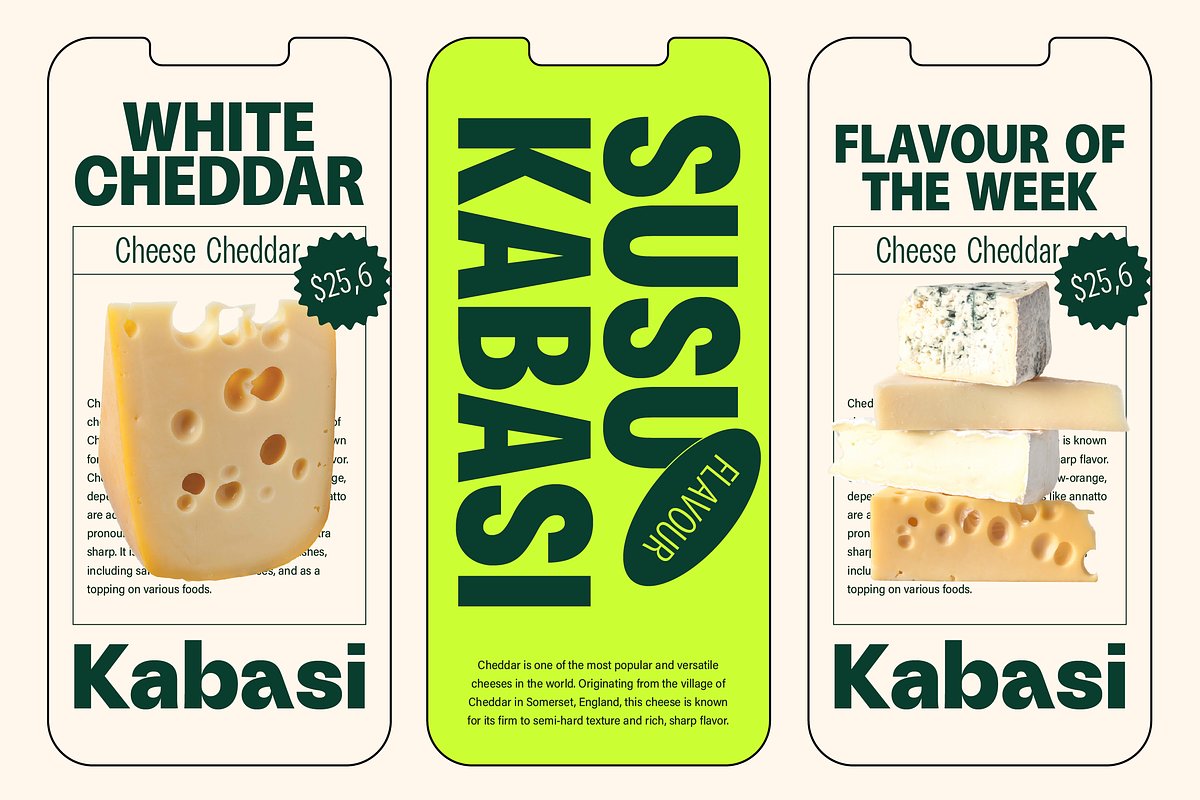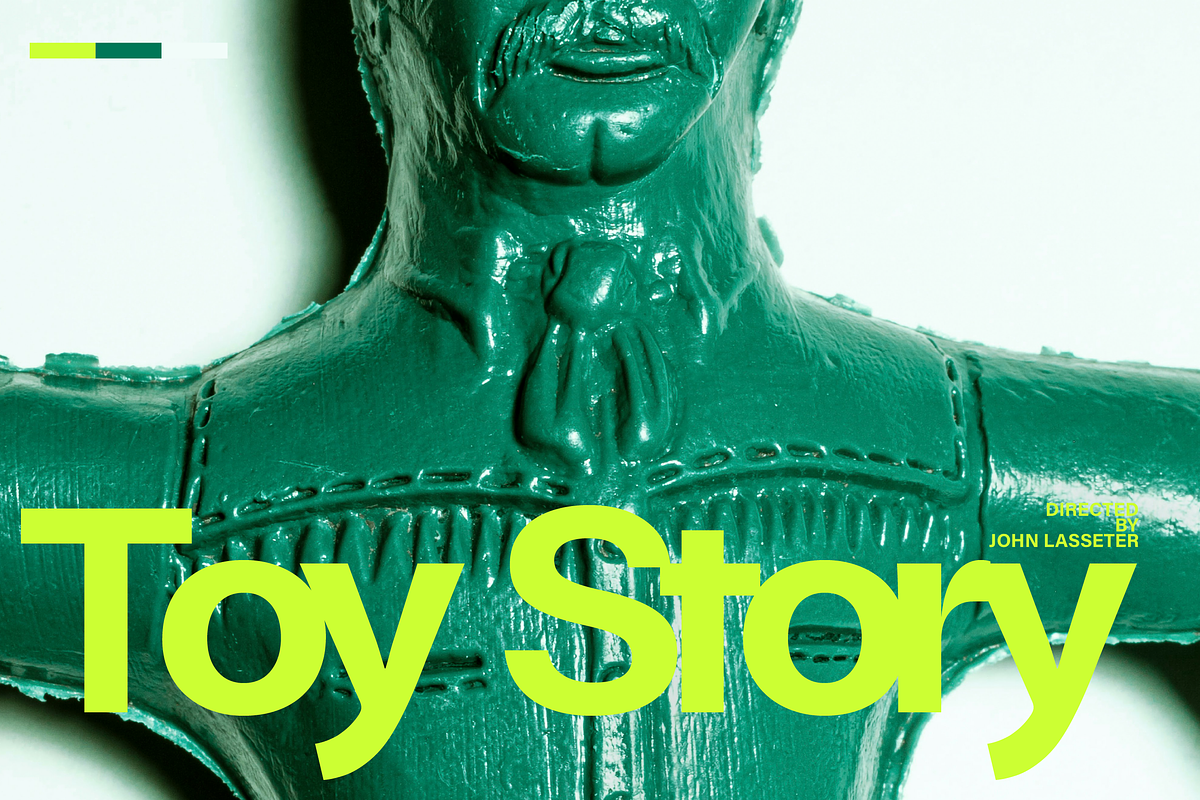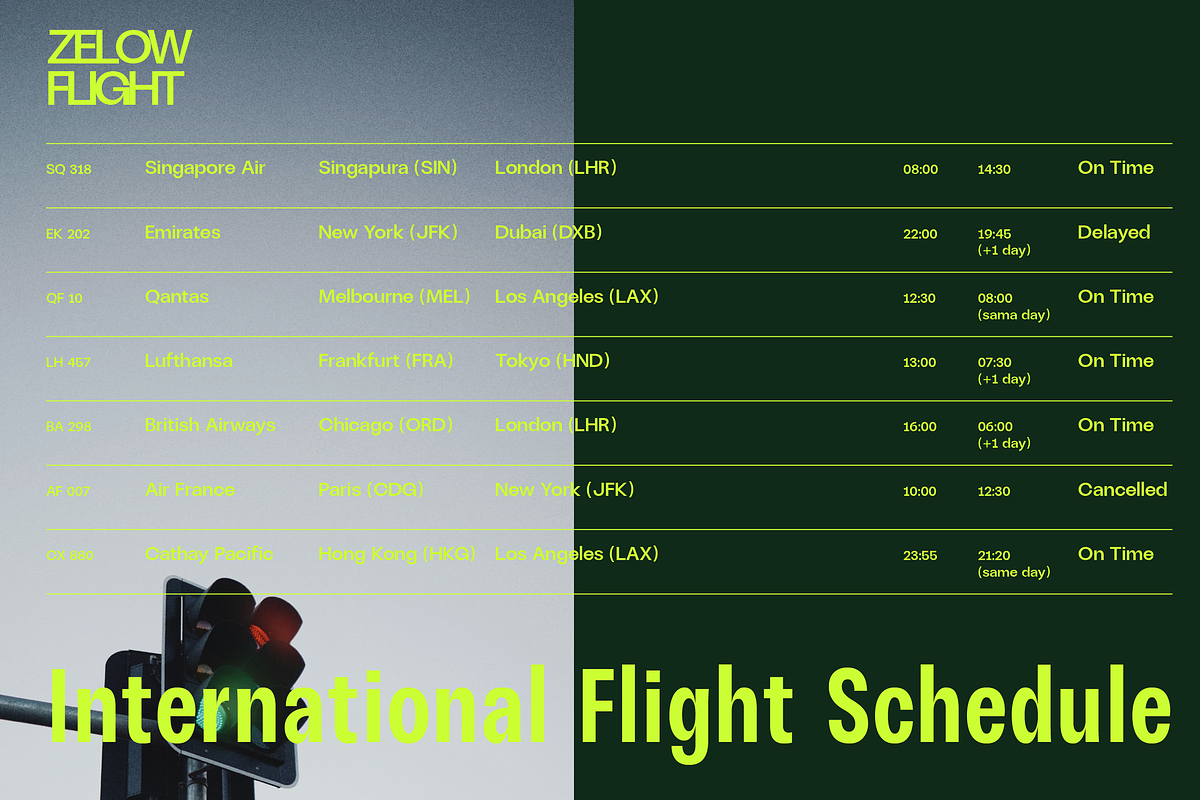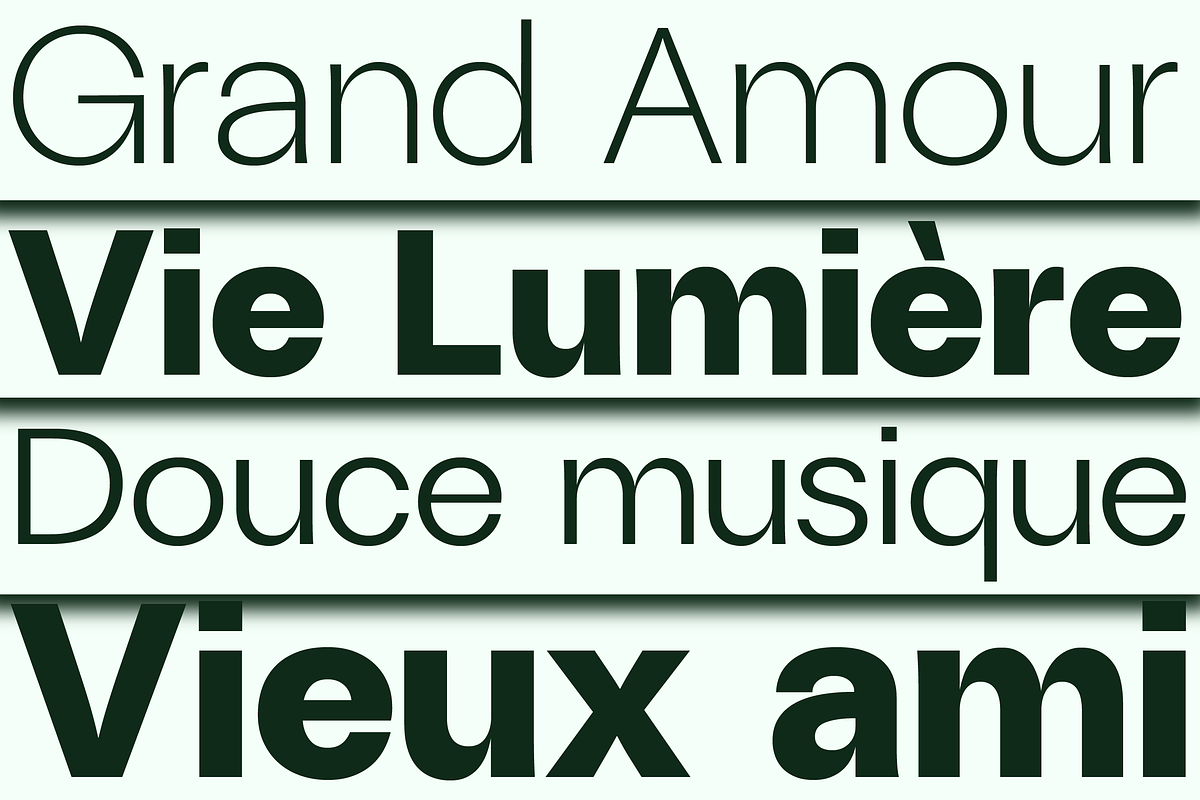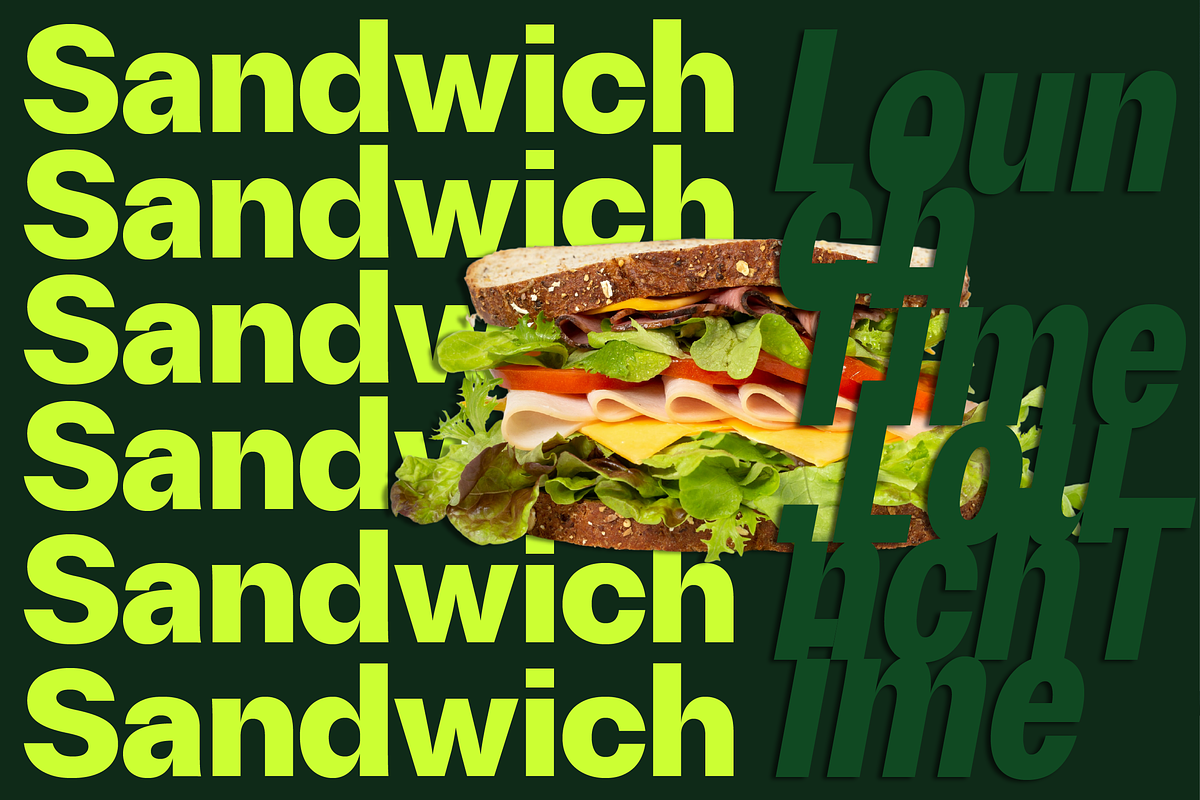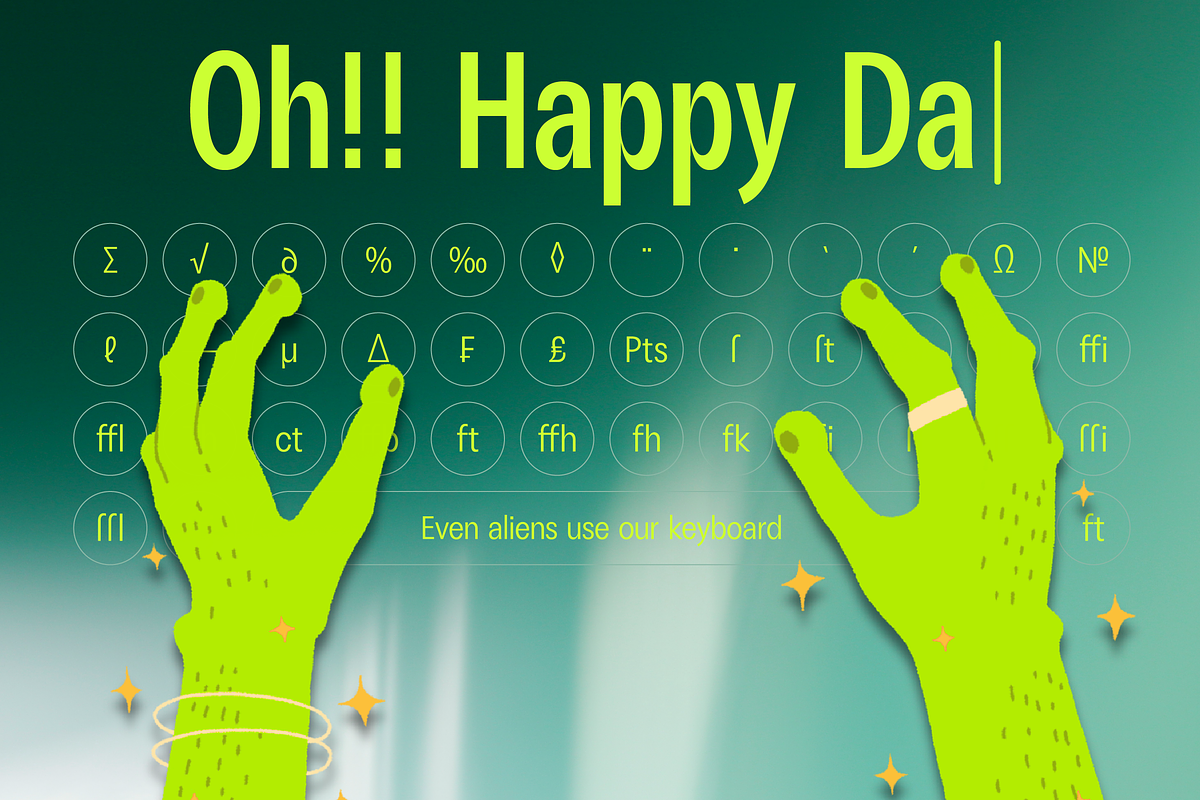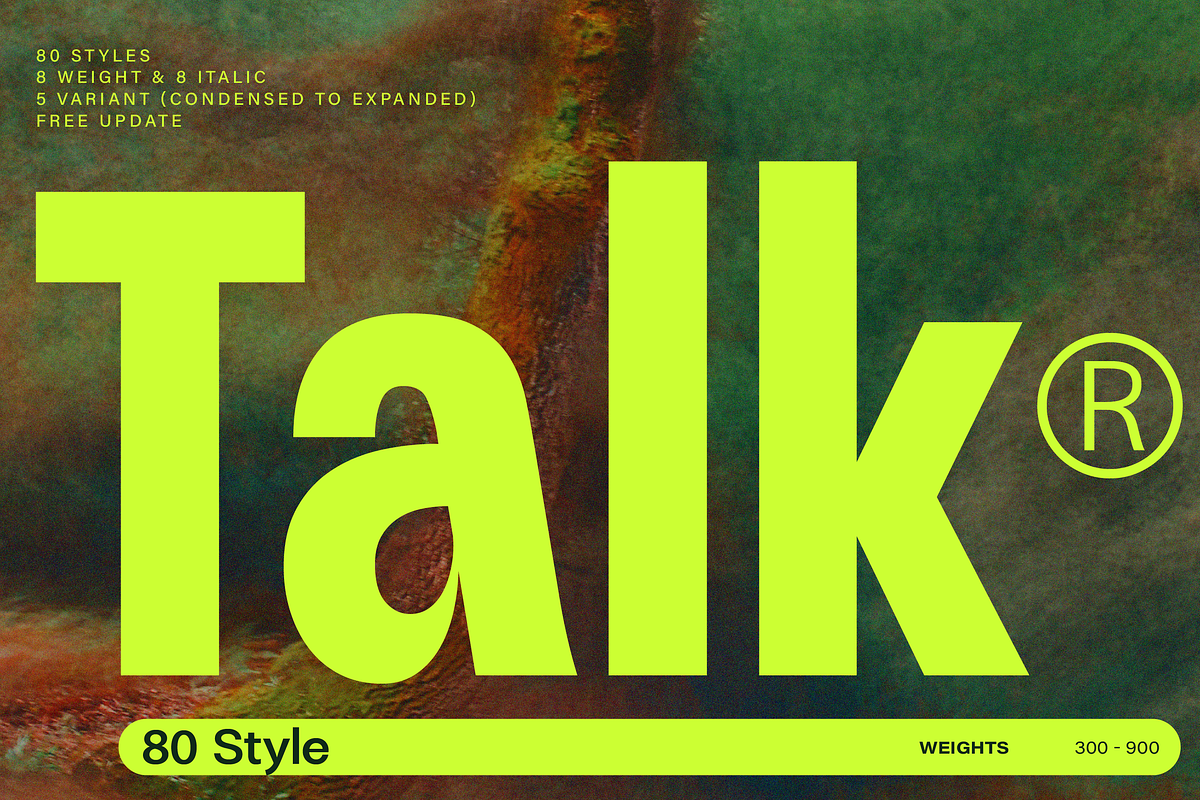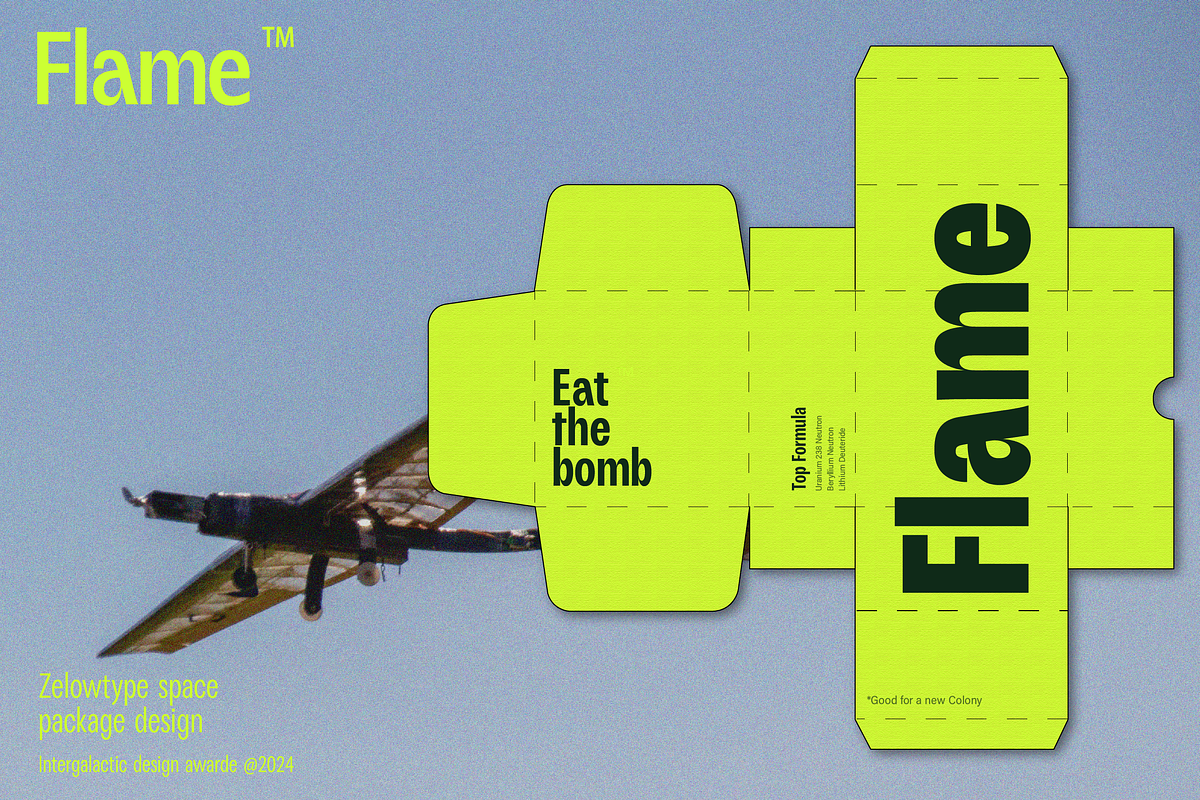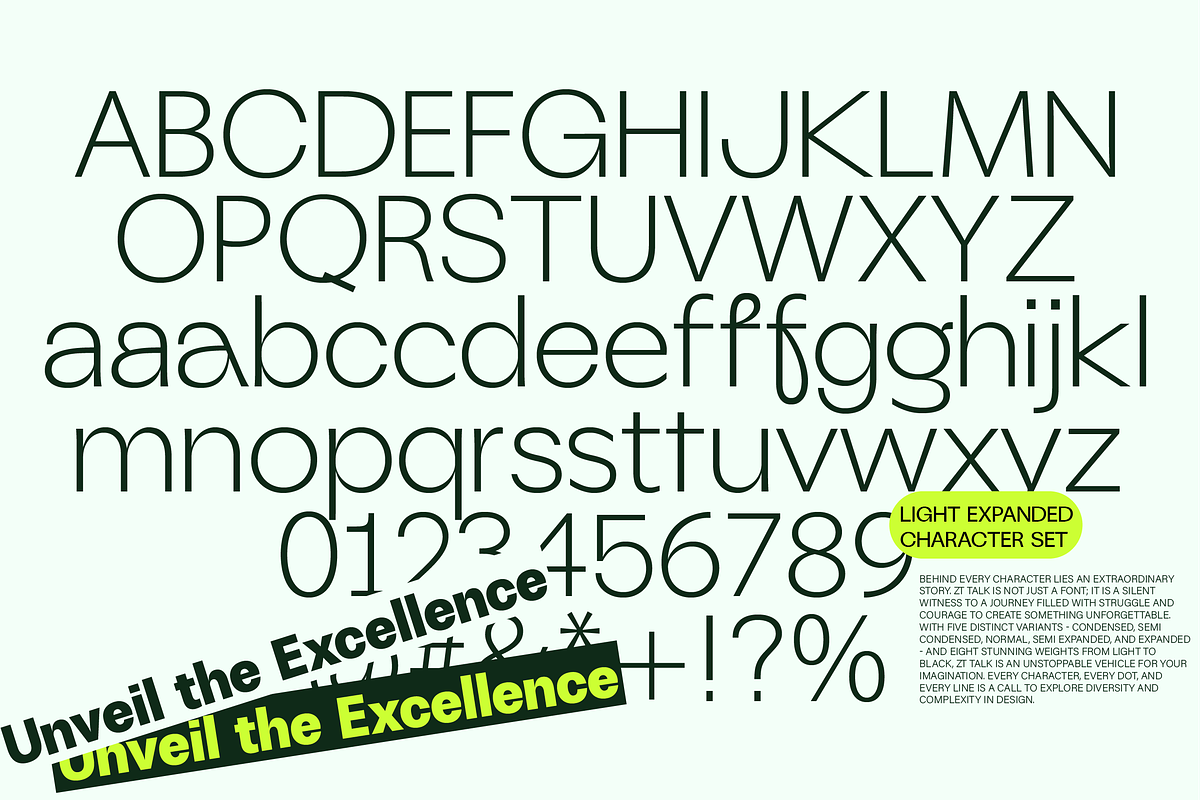
ZT Talk Sans - 80 Font
Behind every character lies an extraordinary story. ZT Talk is not just a font; it is a silent witness to a journey filled with struggle and courage to create something unforgettable.
With five distinct variants - Condensed, Semi Condensed, Normal, Semi Expanded, and Expanded - and eight stunning weights from Light to Black, ZT Talk is an unstoppable vehicle for your imagination. Every character, every dot, and every line is a call to explore diversity and complexity in design.
80 Styles: Offering a wide collection of 80 unique styles, ZT Talk provides unparalleled flexibility in design.
5 Variant Varieties: Condensed, Semi Condensed, Normal, Semi Expanded, and Expanded
8 Weights & Italic: Spanning from Light to Black, eight weights provide clear and effective text hierarchy.
Multi-Language Support: With support for multiple languages and accents, ZT Talk allows you to reach a global audience effortlessly.
Consistent Cohesion: Despite its many styles, ZT Talk offers consistent visual cohesion throughout its font family, ensuring harmony in your designs.
Modern and Elegant Design: With a modern touch and sharp angles, ZT Talk exudes an elegant impression suitable for various contemporary design projects.
Optimal Quality: Carefully crafted for optimal quality, ZT Talk delivers the clarity and perfection expected from a premium font.
The quest for perfection never ends. From complex lines of code to intricate design details, every touch in ZT Talk is carefully considered. Each variant, each weight - all meticulously arranged to create the perfect balance between clarity and beauty.
ZT Talk is a call to build an extraordinary story. From stunning branding to captivating layouts, ZT Talk is a loyal companion ready to help bring every creative vision to life. Welcome to a new era of design expression, where every point and letter becomes part of an unforgettable narrative.